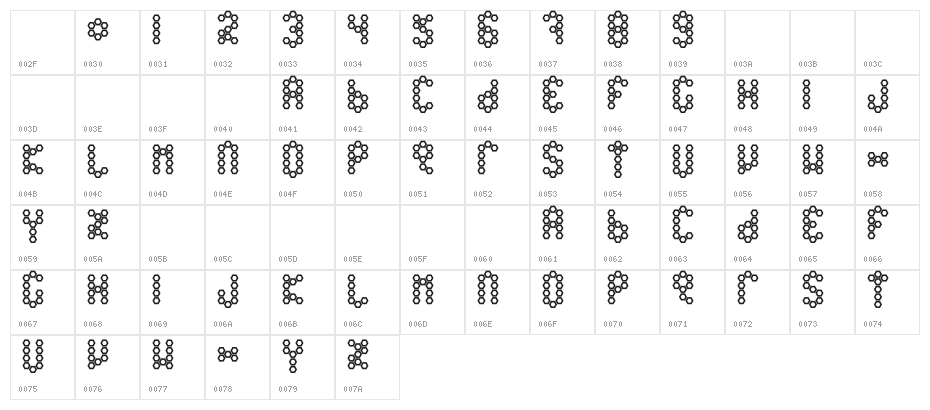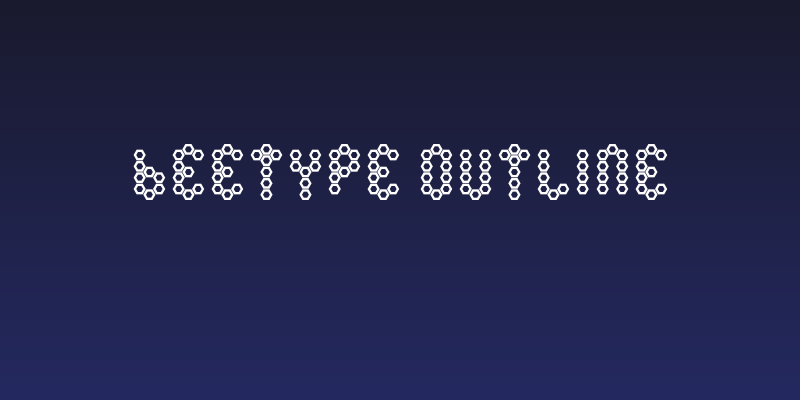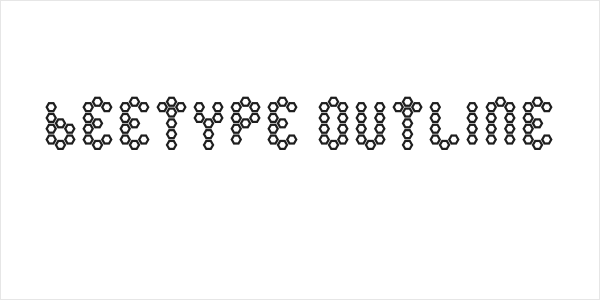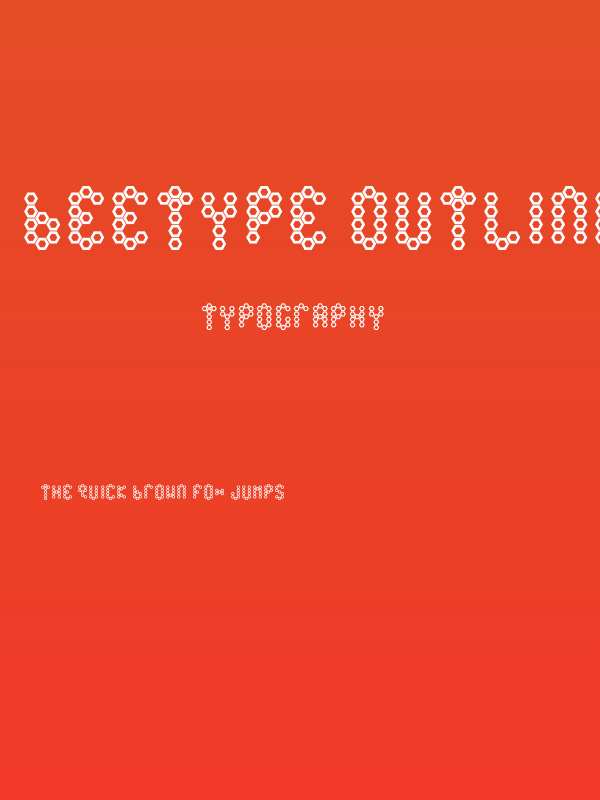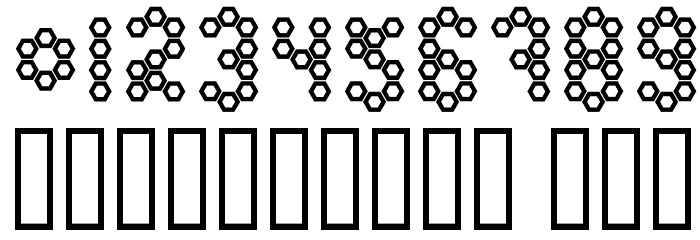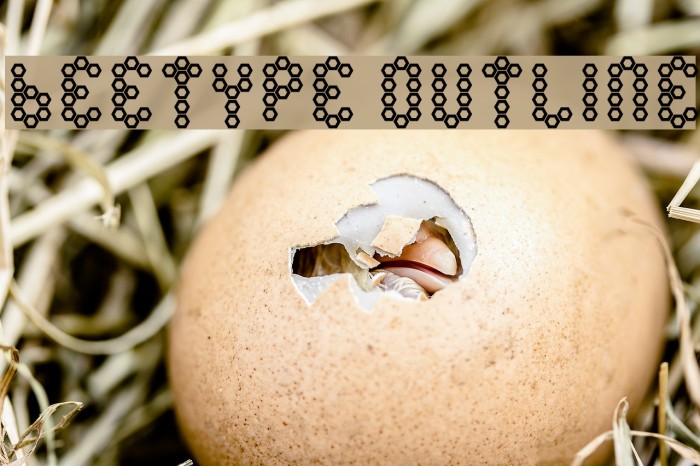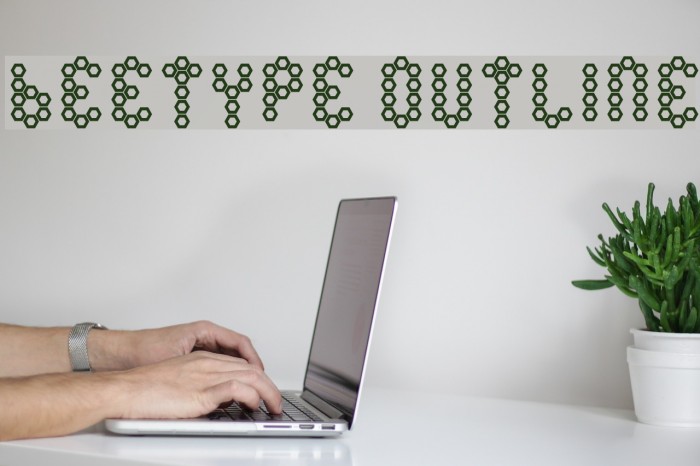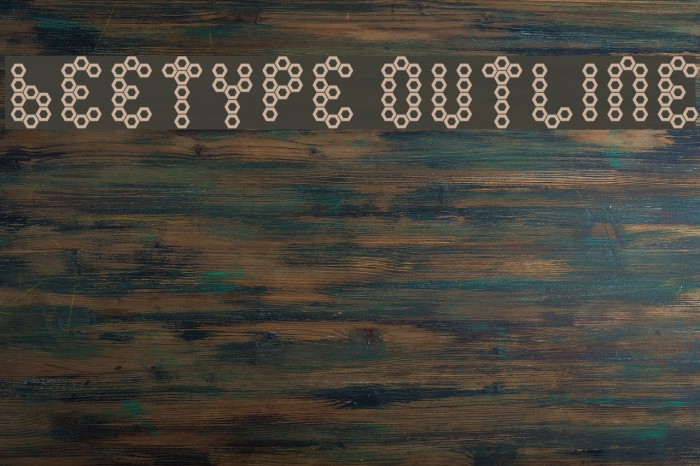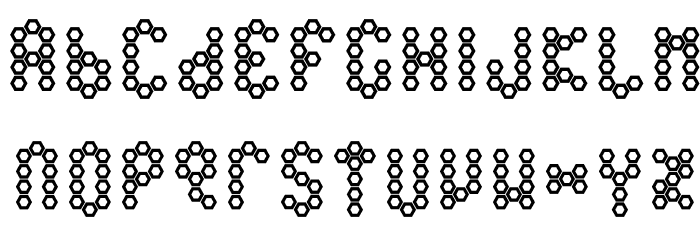
Beetype Outline Font
Beetype Outline Description
This font features a unique design where each character is composed of a series of interconnected hexagonal shapes, creating an outline effect. The geometric pattern gives it a modern and playful appearance, reminiscent of honeycombs or molecular structures. The characters maintain a consistent height and width, providing a uniform look across the alphabet. The font is highly decorative and stands out due to its intricate design, making it ideal for eye-catching displays. The hexagonal theme is consistently applied across uppercase, lowercase, numbers, and special characters, ensuring a cohesive style.
| Proposed Projects | Ideal for projects that require a unique and modern aesthetic, such as science-themed posters, tech event flyers, or branding for innovative products. |